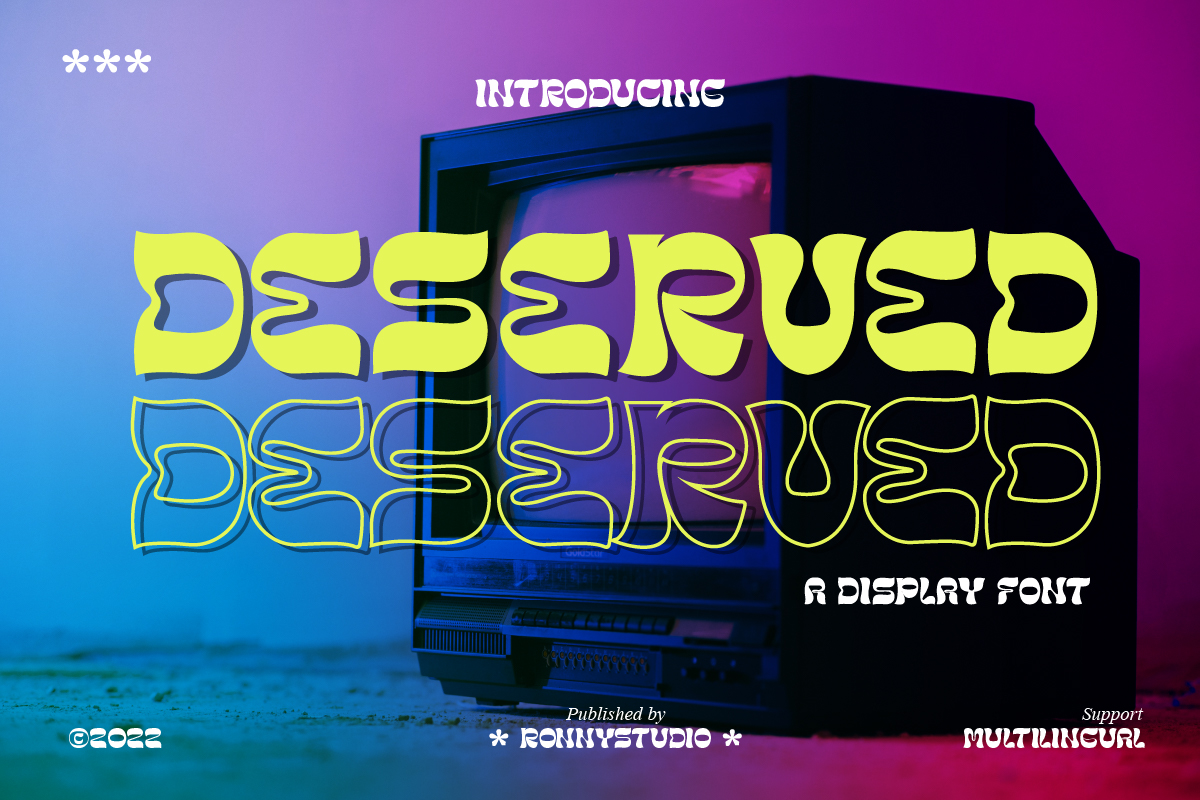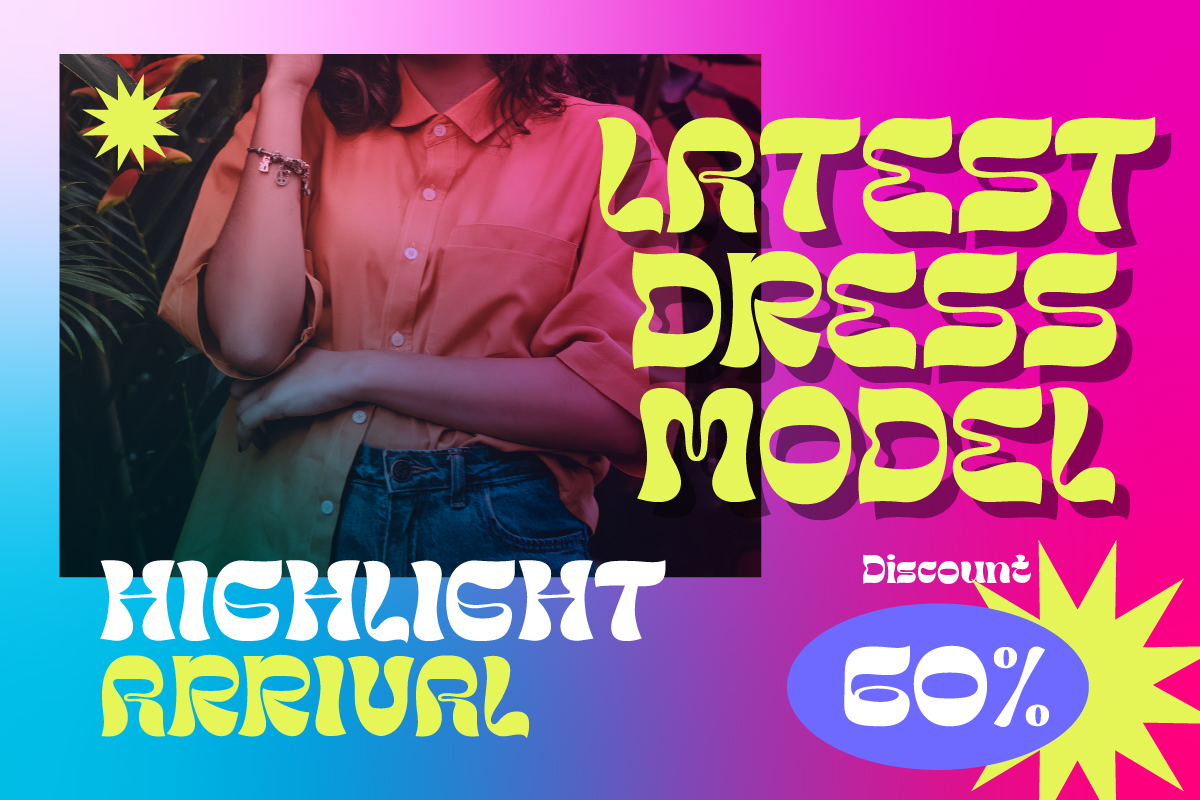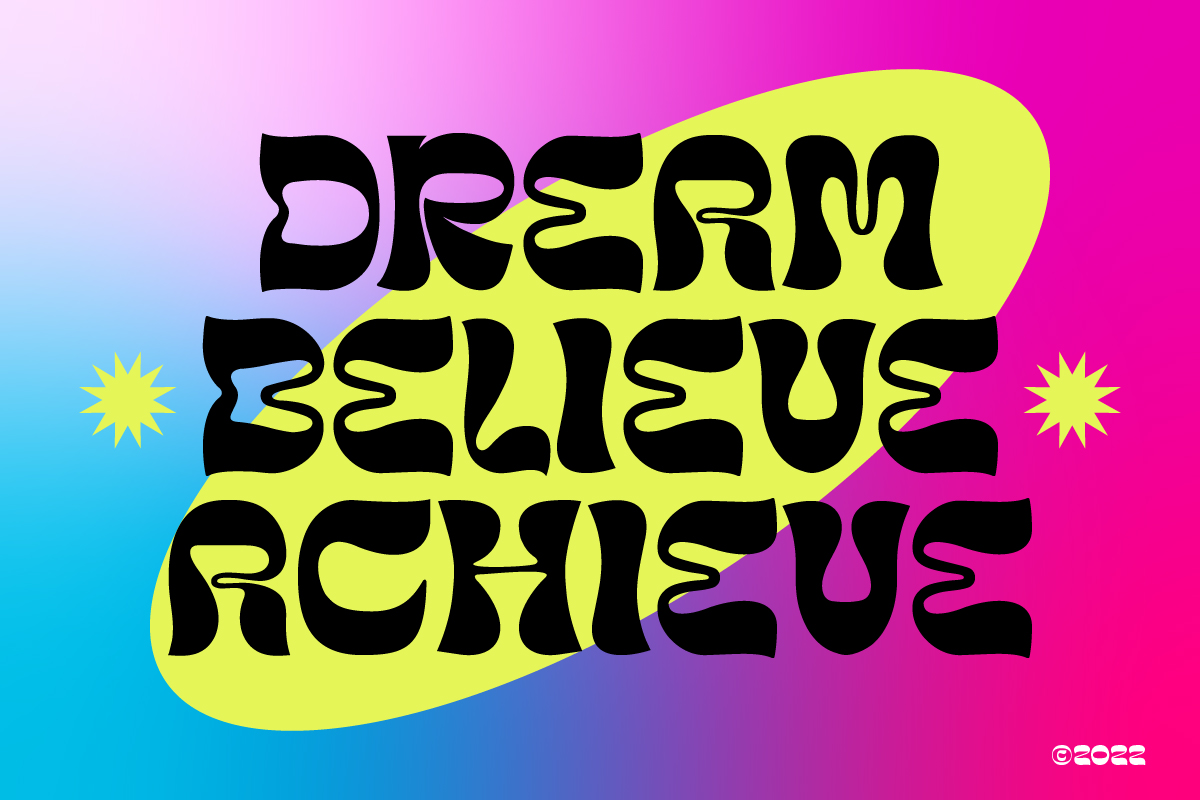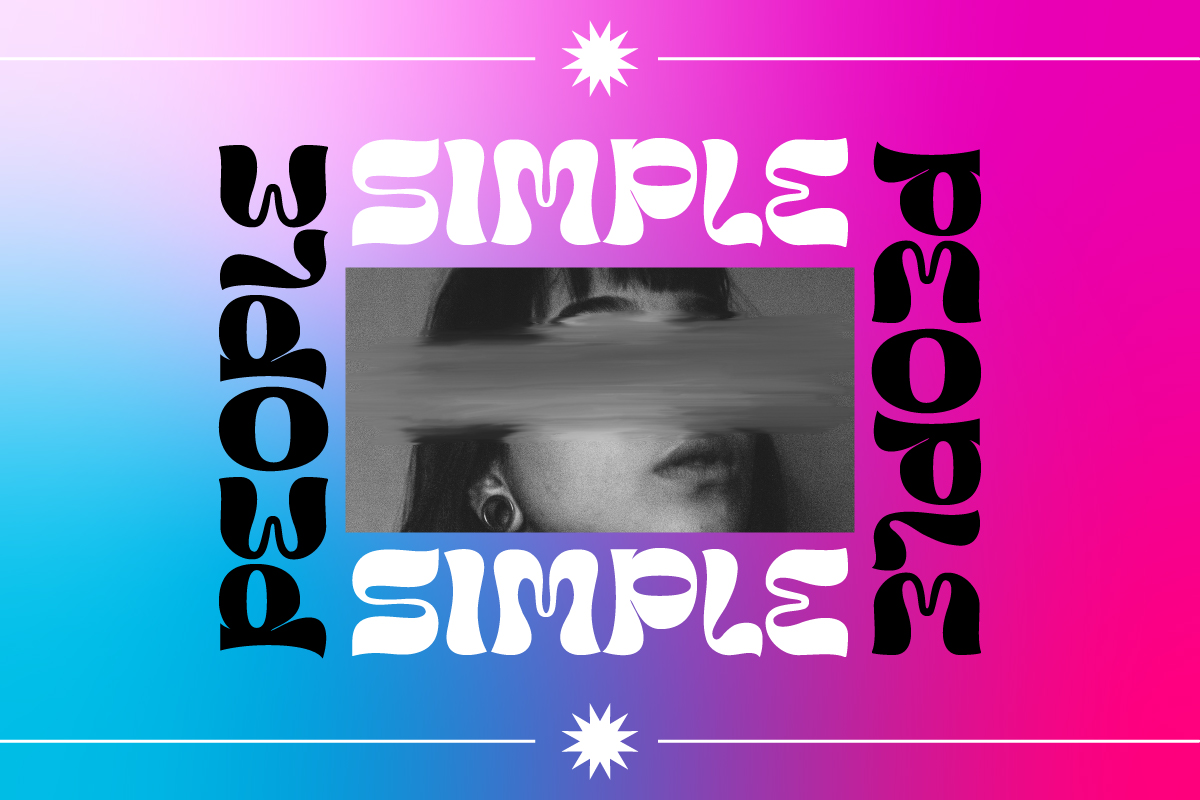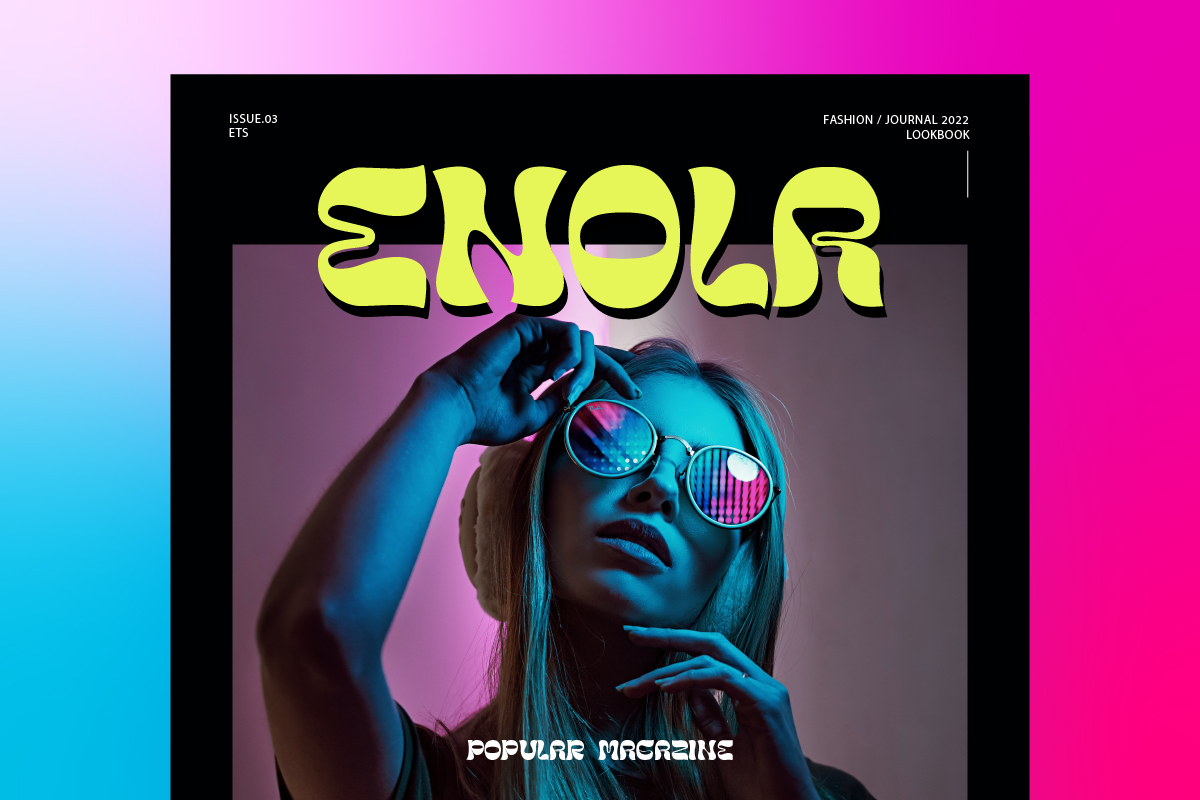
Deserved Font
Deserved Display Font
This is an elegant look typeface. A unique font, with bold and thin sizes, adds to the impression of elegance, luxury and class. This typeface is perfect for logos, branding, travel promotions, social media posts, magazine layouts, product packaging, quotes, or simply as a stylish text overlay onto any background image.